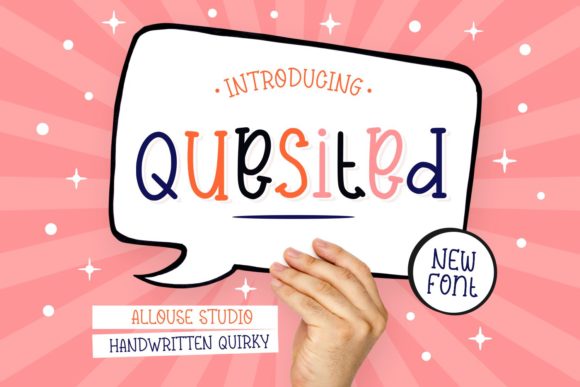
Journey into a world of charm and character with Quesited Font, a playful and captivating display font that will ignite your imagination. Created by the talented allouse.studio, Quesited is a font that dances off the page, adding a touch of whimsy and delight to any project you undertake.
Step into a realm where creativity flourishes, and words transform into enchanting works of art. Quesited's playful nature makes it the perfect choice for designs that demand a splash of individuality. Its quirky style invites you to think outside the box and explore limitless possibilities.
With Quesited, your designs will exude a sense of joy and lightheartedness. Its relaxed curves and unique letterforms create a visual symphony that captures the essence of happiness and wonder. Let Quesited be your guide as you embark on a creative adventure, crafting designs that resonate with warmth and charm.
Whether you're a seasoned designer or just starting your creative journey, Quesited is the font that will unlock your imagination and propel your projects to new heights. Its versatility knows no bounds, making it the perfect companion for everything from whimsical logos and branding to cheerful posters and invitations.
Embrace the magic of Quesited and let your words dance with delight. Experience the transformative power of this charming display font as it elevates your designs to extraordinary heights. With Quesited by your side, the world of design becomes a vibrant playground where anything is possible.